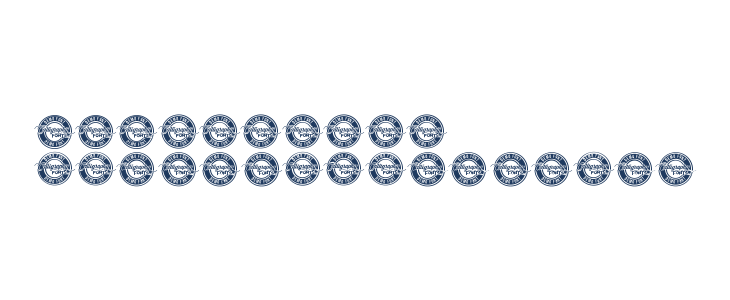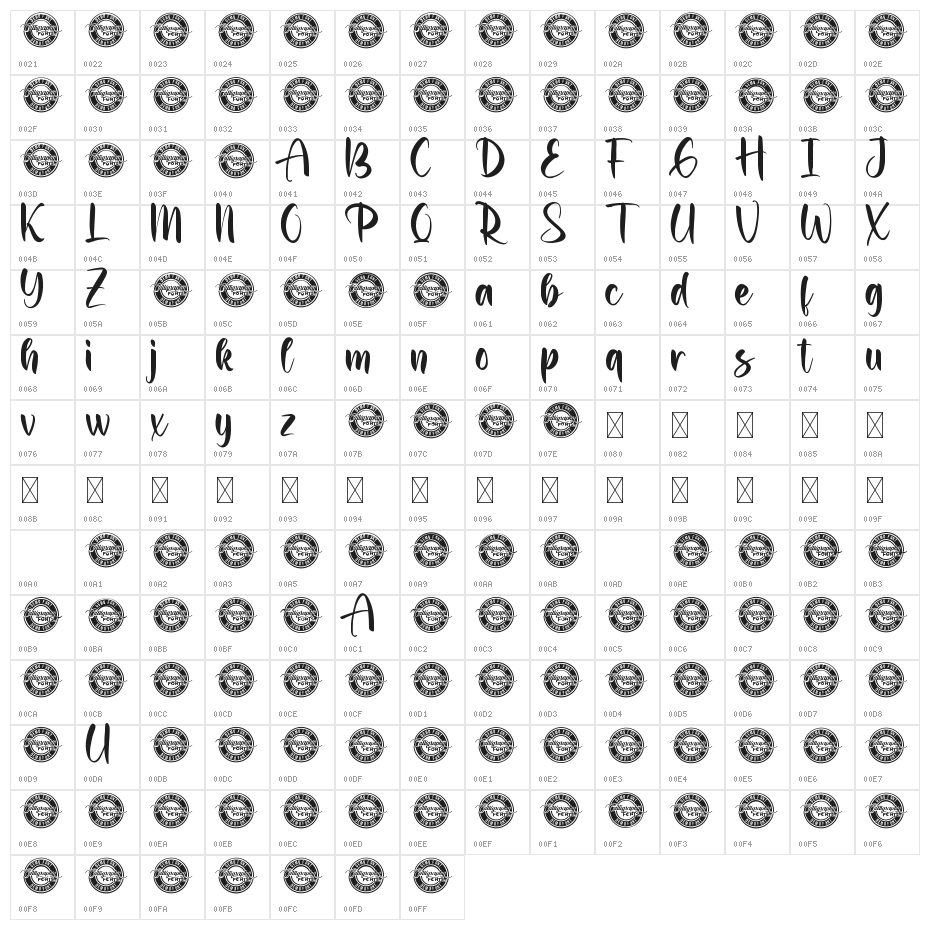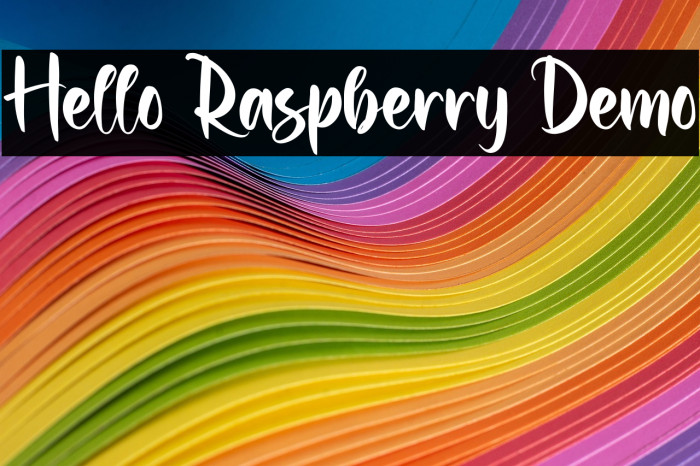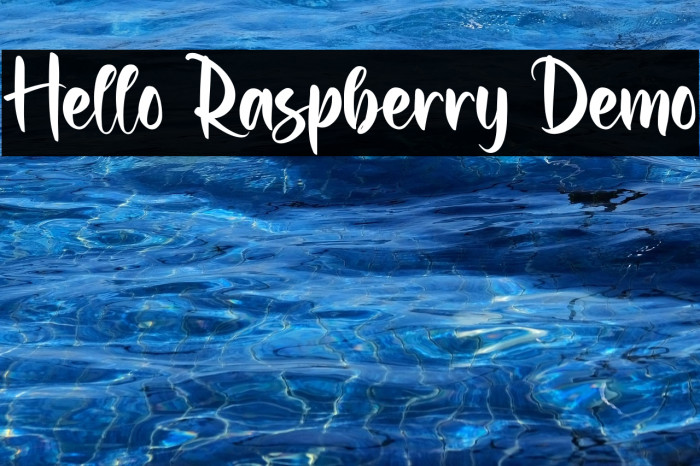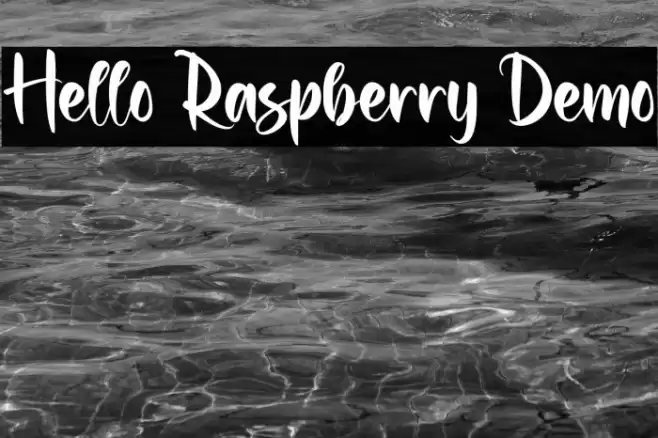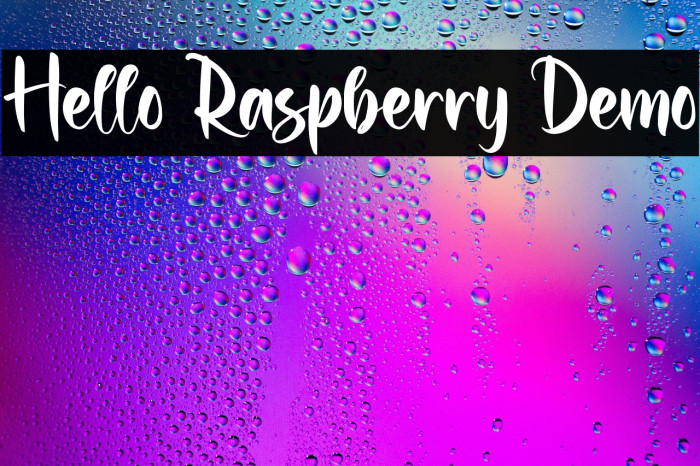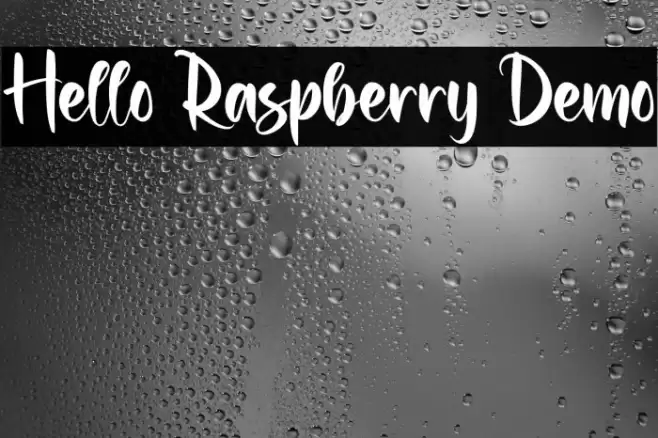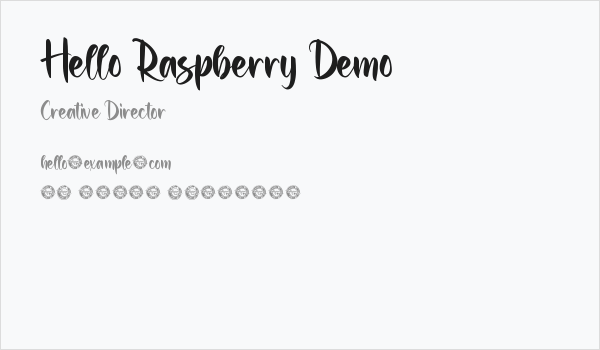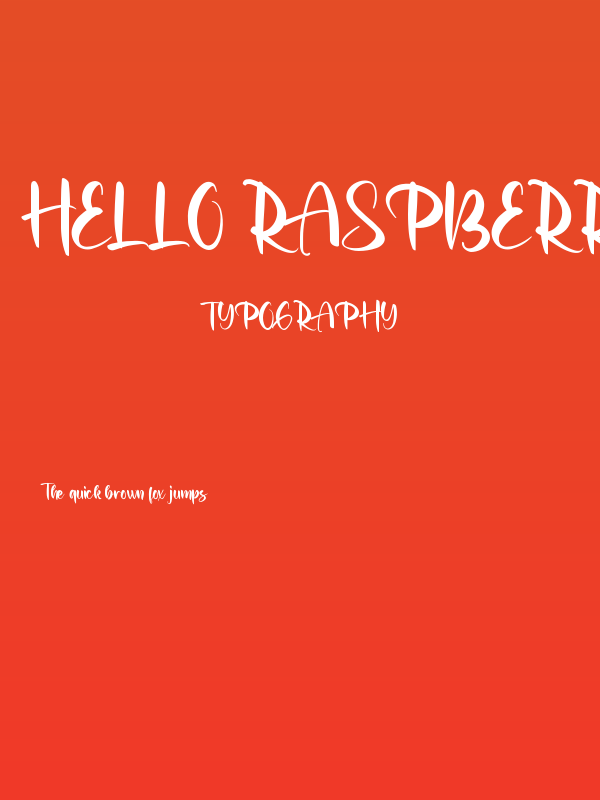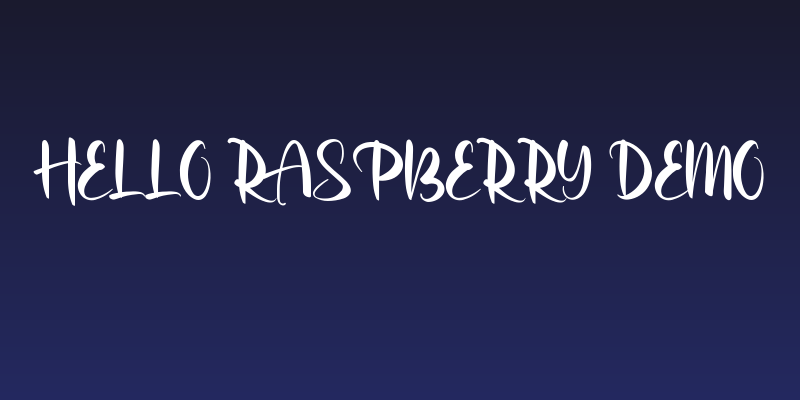
Hello Raspberry Demo Font
This font features a bold and expressive handwritten style, characterized by its fluid and dynamic strokes. The uppercase letters are tall and slightly narrow, with a playful yet elegant flair. The lowercase letters maintain a consistent flow, enhancing the overall cohesiveness of the design. The font's thick strokes and smooth curves give it a strong presence, making it ideal for attention-grabbing headlines or creative projects. Its unique style combines modern aesthetics with a touch of artistic flair, making it versatile for various design needs.
Use CaseHeadlines, Logos, Invitations
Proposed ProjectsIdeal for branding, logo design, invitations, posters, and social media graphics.